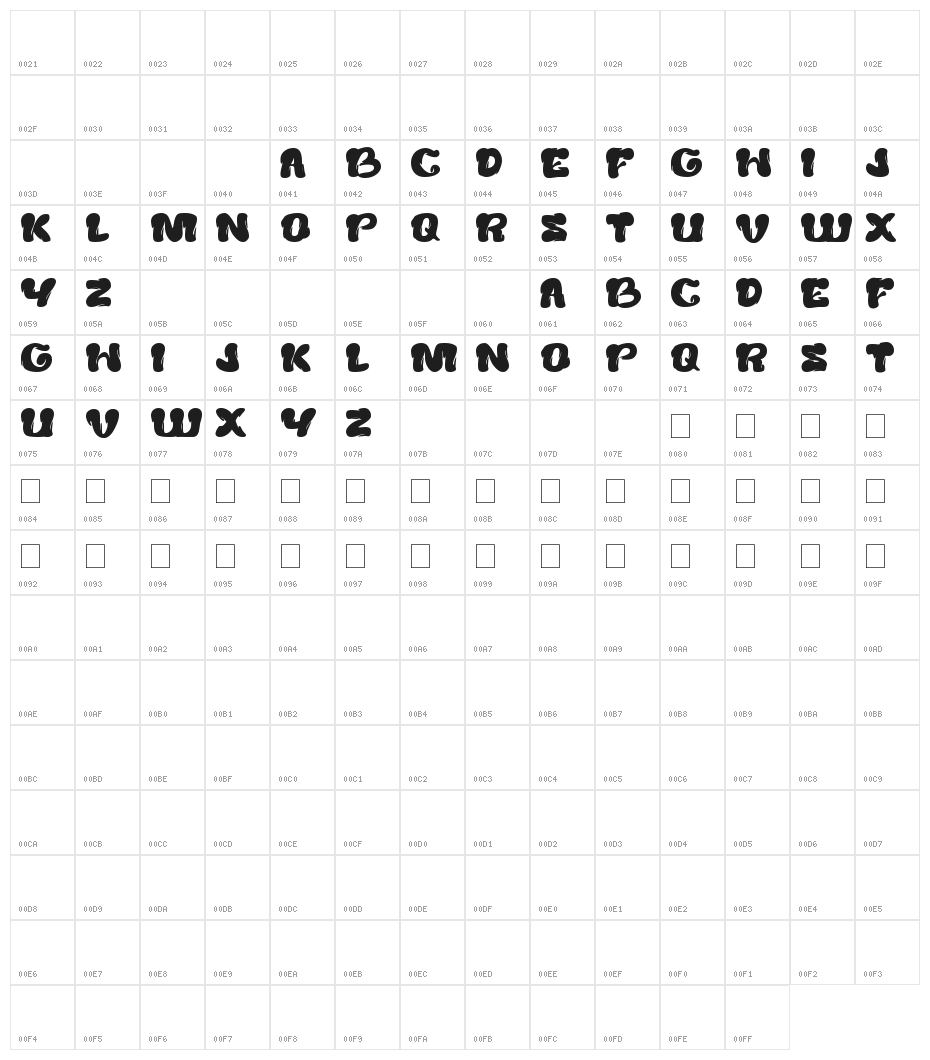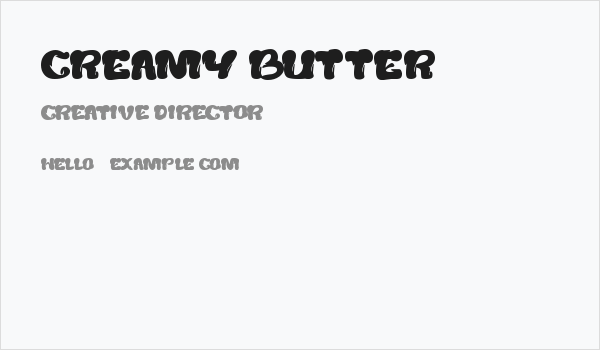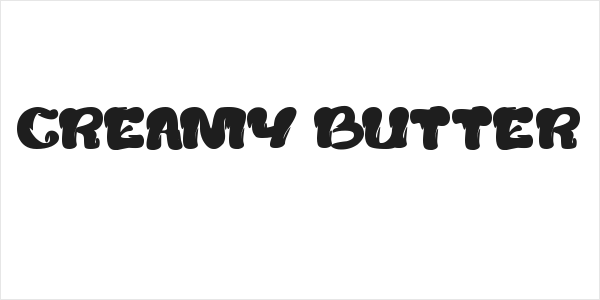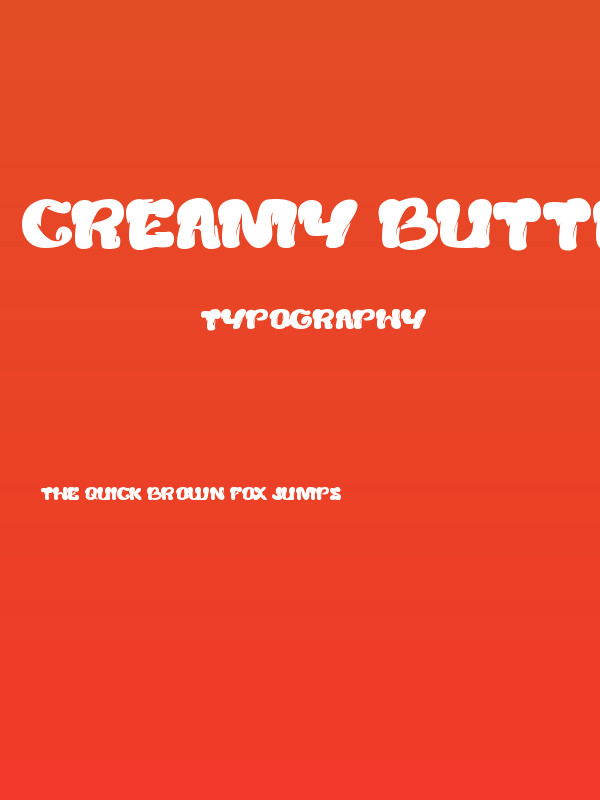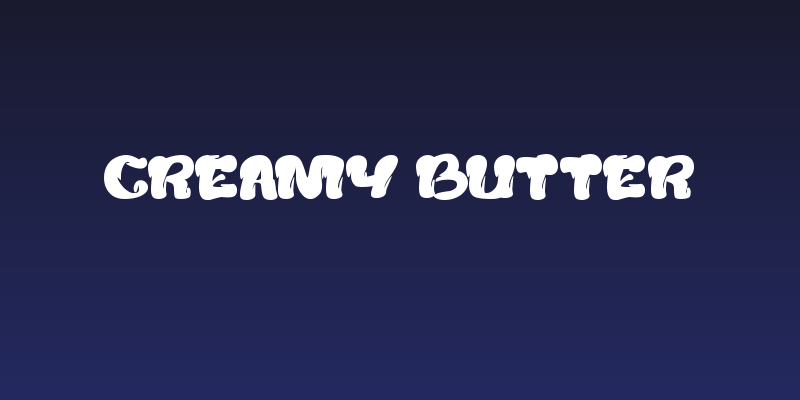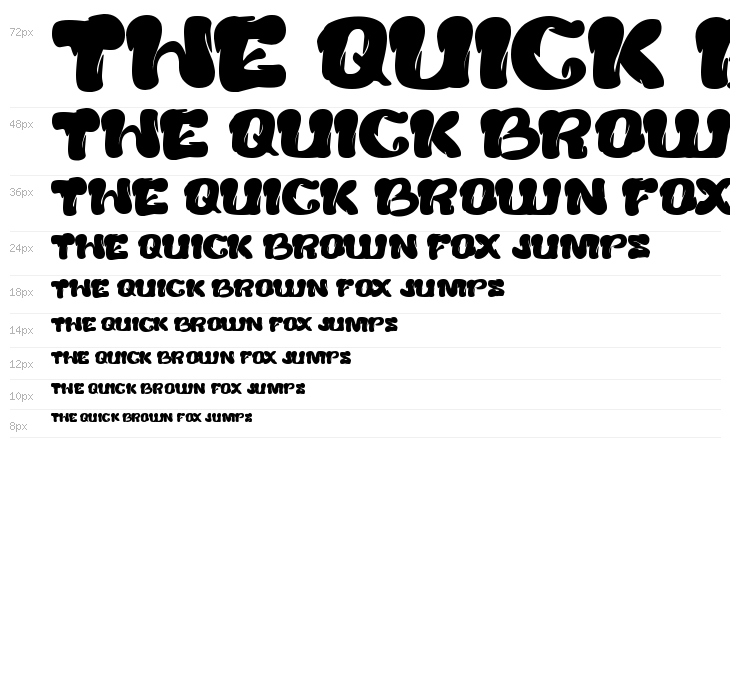
creamy butter Font
creamy butter Description
This font features a bold, playful design with a distinctly rounded and bubbly appearance. Each character is crafted with thick strokes, giving it a heavy and substantial feel. The letters are closely spaced, enhancing the compact and cohesive look of the text. The overall style is reminiscent of retro or vintage aesthetics, making it ideal for designs that aim to capture a sense of nostalgia or fun. The font's unique character shapes and bold presence make it stand out, perfect for attention-grabbing headlines or creative projects.